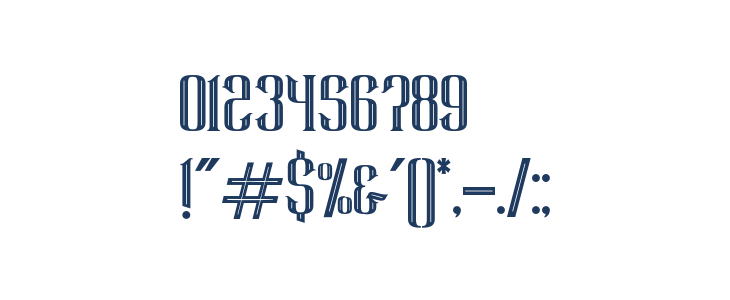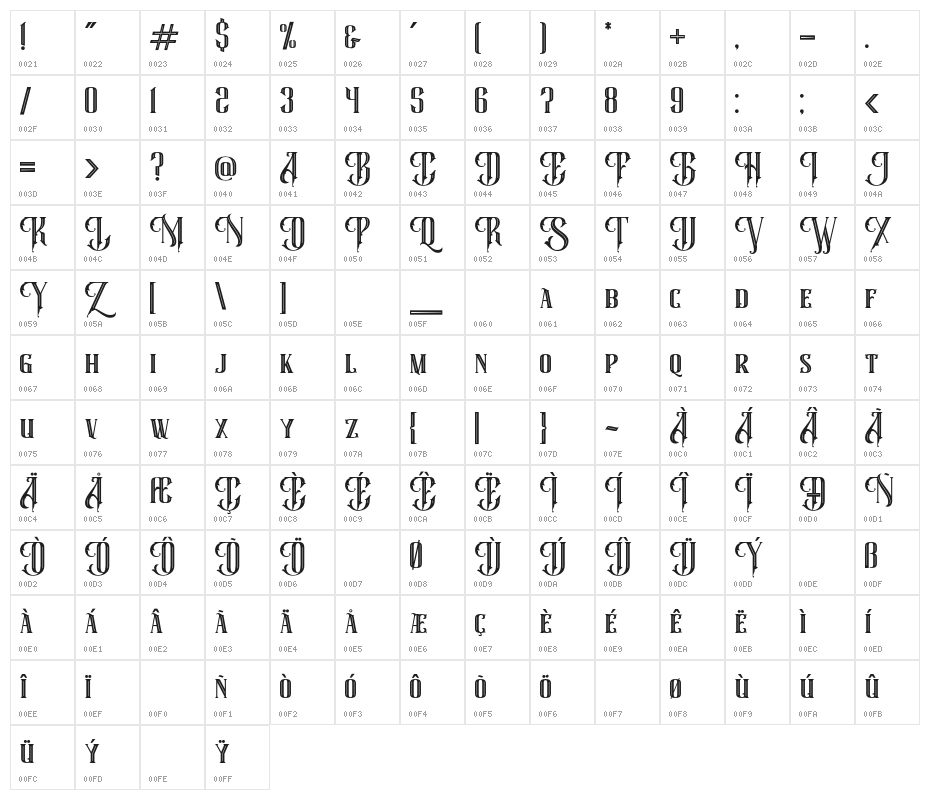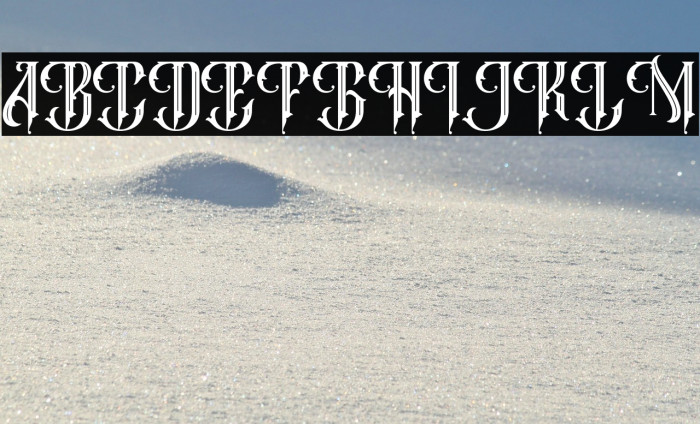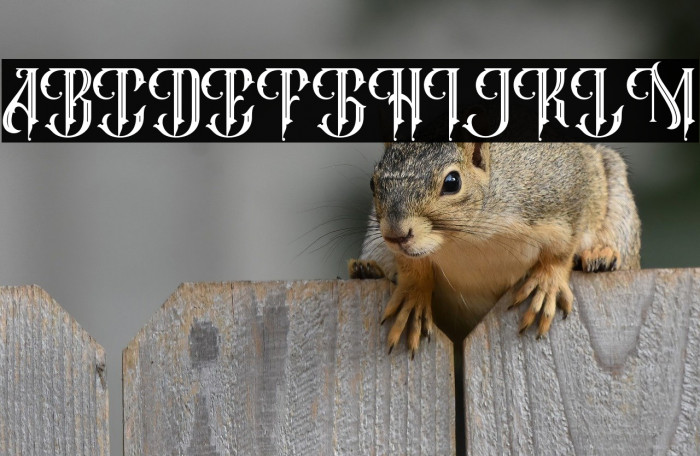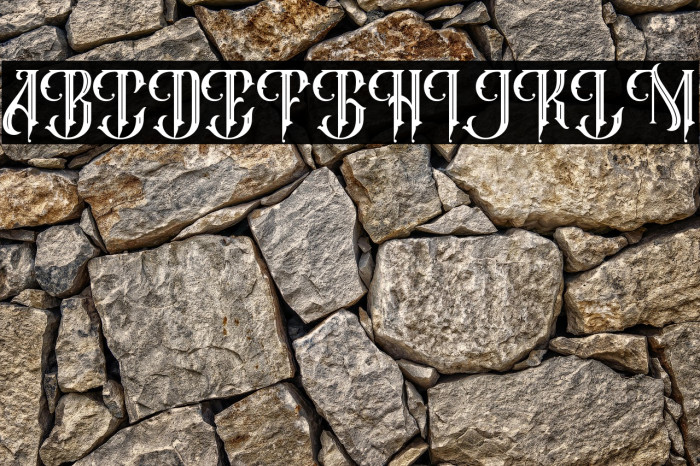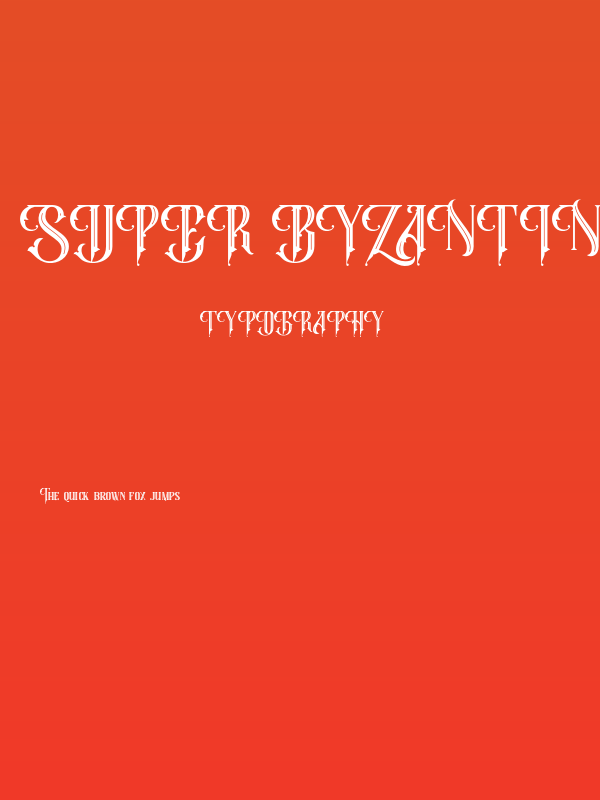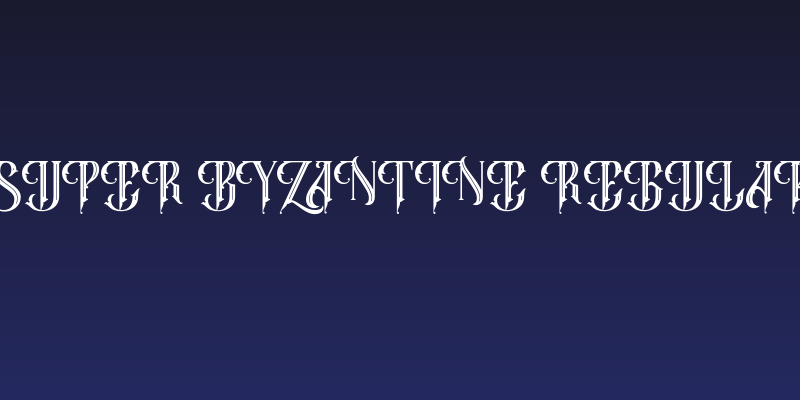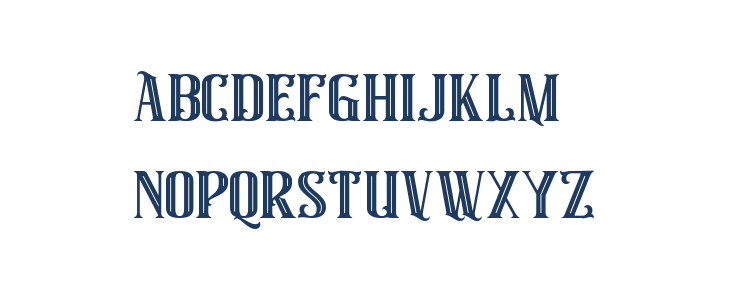
Super Byzantine Regular Font
Super Byzantine Regular Description
This font features a highly decorative and ornate style, reminiscent of historical and Byzantine influences. The uppercase letters are embellished with intricate flourishes and sharp serifs, giving them a regal and dramatic appearance. The lowercase letters maintain a similar decorative quality, ensuring consistency across the typeface. The numerals are bold and distinct, with unique styling that complements the overall aesthetic. Special characters are equally ornate, making this font suitable for designs that require a touch of elegance and historical flair.